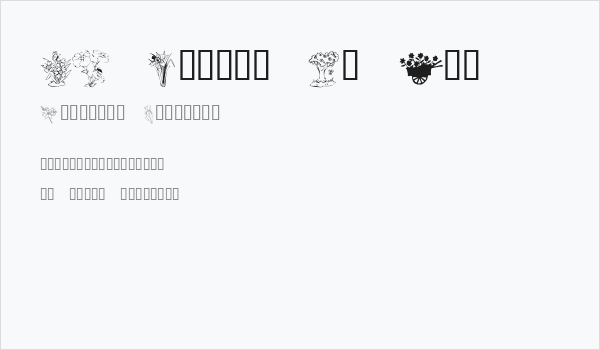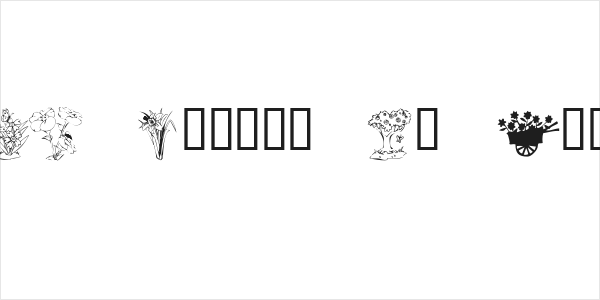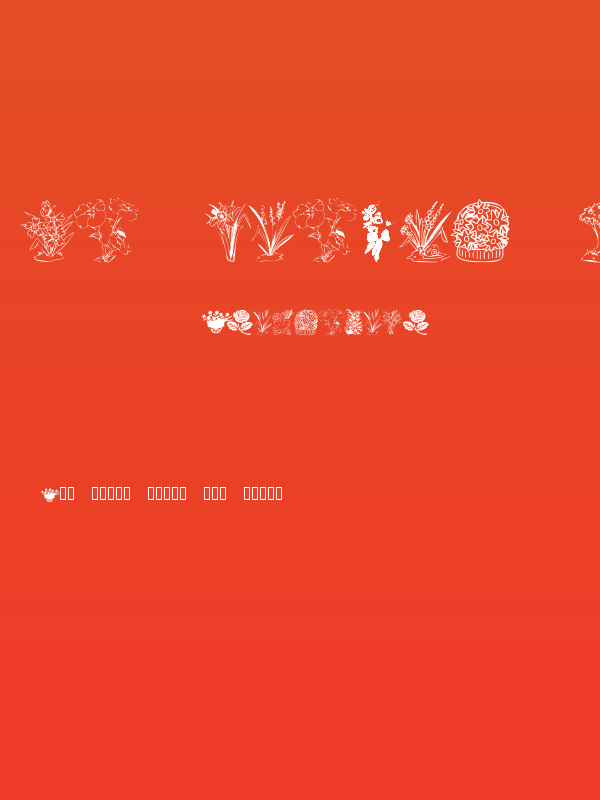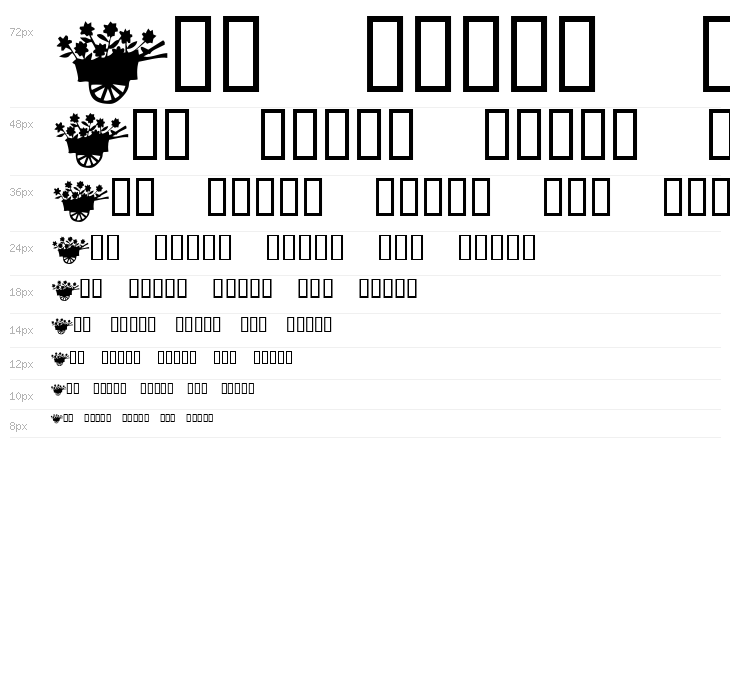
KR Spring Me Too Font
KR Spring Me Too Description
A decorative dingbat font featuring hand-drawn floral and botanical illustrations, each glyph representing a unique spring-themed flower or plant in a whimsical, sketch-like style.
| Overall Style | Decorative, Whimsical, Hand-drawn |
| Use Case | Decorative elements, Icons, Borders, Themed graphics |
| Proposed Projects | Greeting cards, spring event invitations, scrapbooking, decorative borders, seasonal posters, craft projects. |